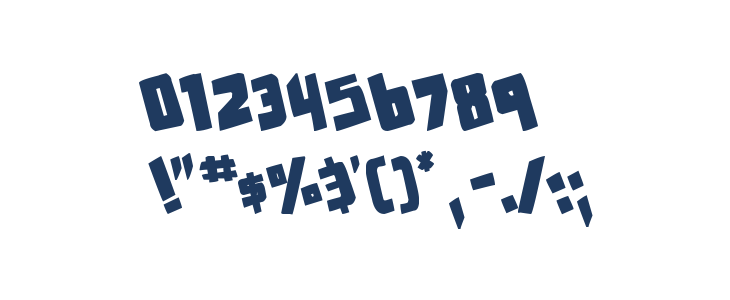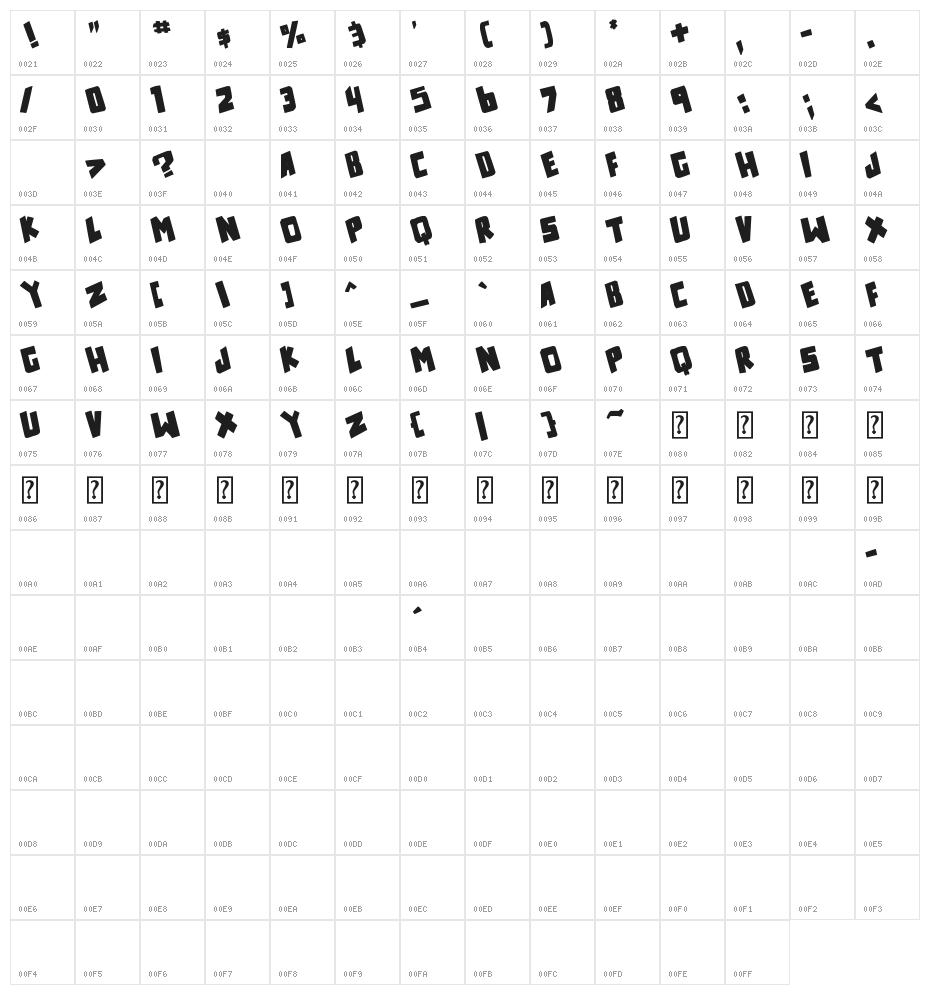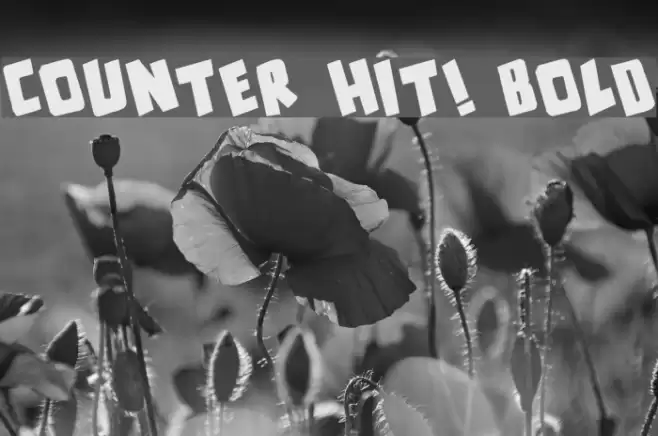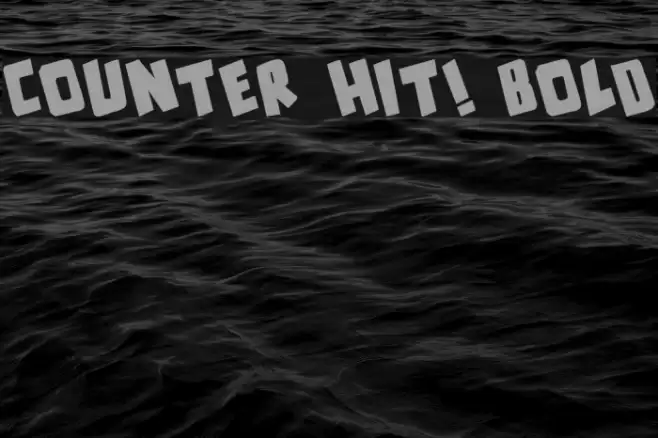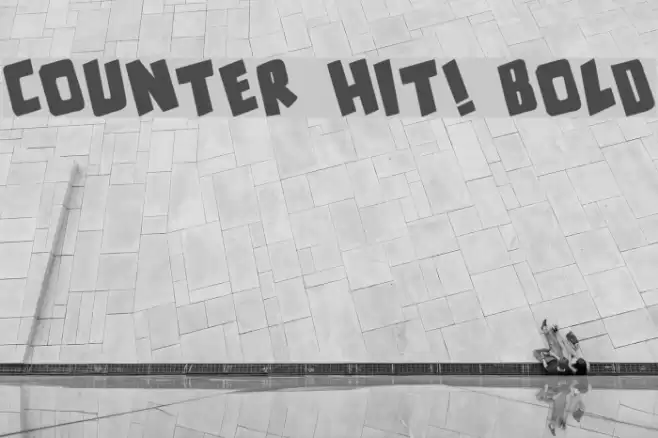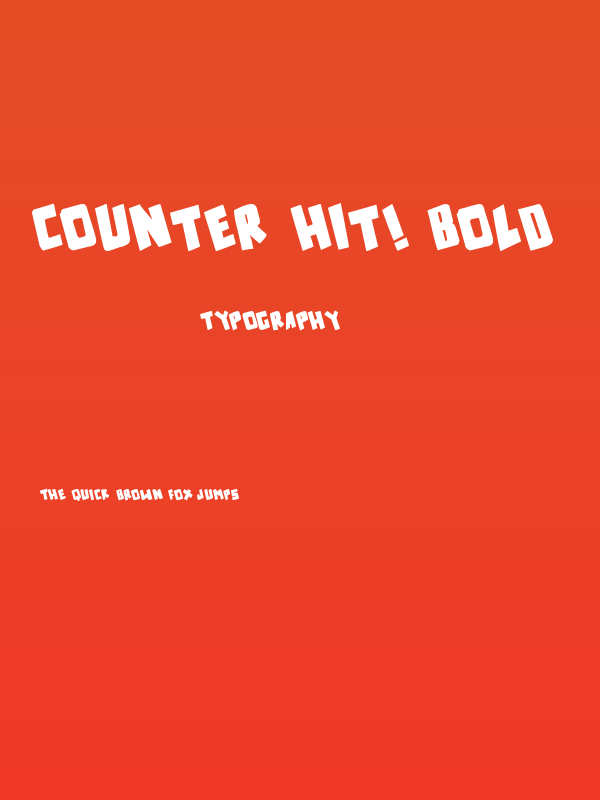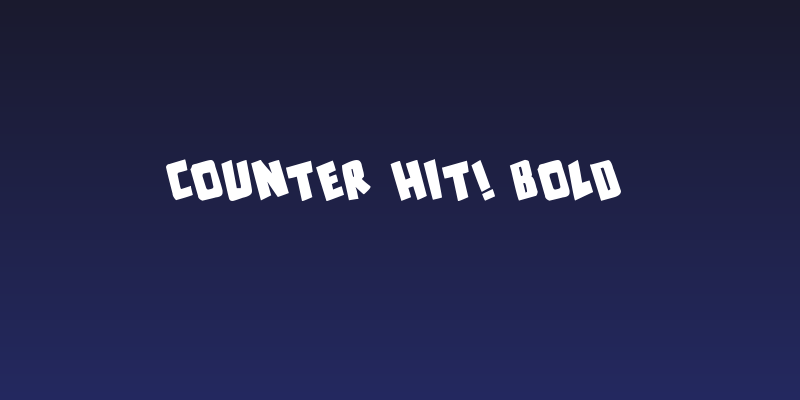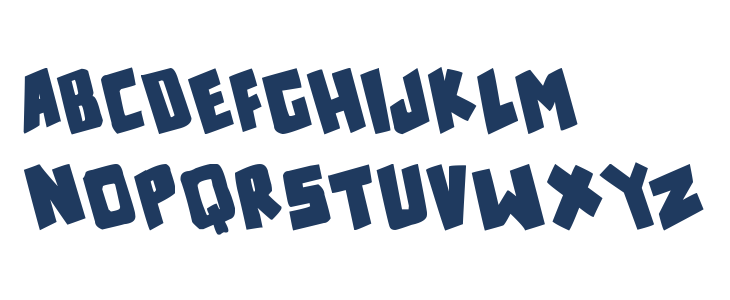
counter hit! Bold Font
counter hit! Bold Description
This font features a bold and dynamic style with a strong presence. The characters are angular and geometric, giving it a modern and edgy appearance. The uppercase and lowercase letters maintain a consistent weight, while the numbers and special characters follow the same bold design. The font's unique style makes it stand out, with each character having a slightly tilted orientation, adding to its energetic and impactful look. The overall design is cohesive, making it suitable for projects that require a strong visual statement.
| Proposed Projects | Ideal for posters, headlines, branding, and any project needing a bold, impactful typeface. |